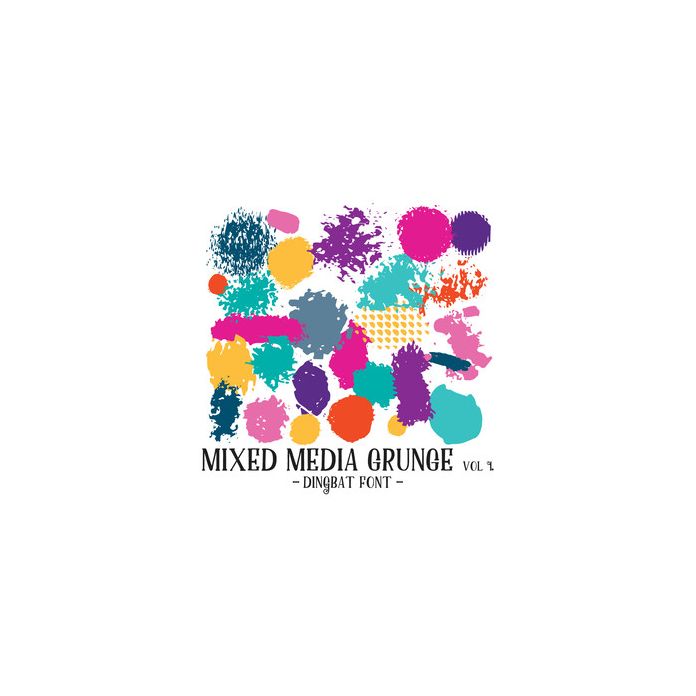
mixed media grunge font
Mixed Media Grunge Hand Drawn Paint, Texture and Effect Font, with 26 grungy effects. All dingbats are allocated to upper and lowercase letters and can be accessed via the glyphs panel or character map.